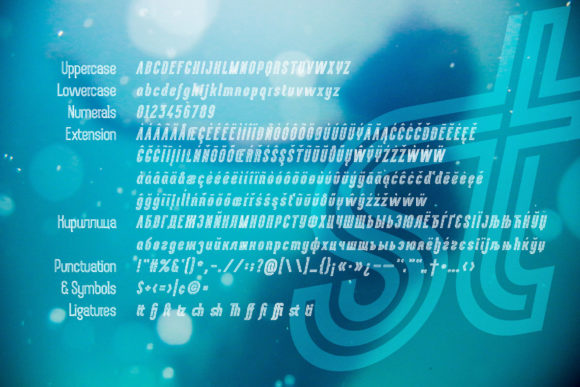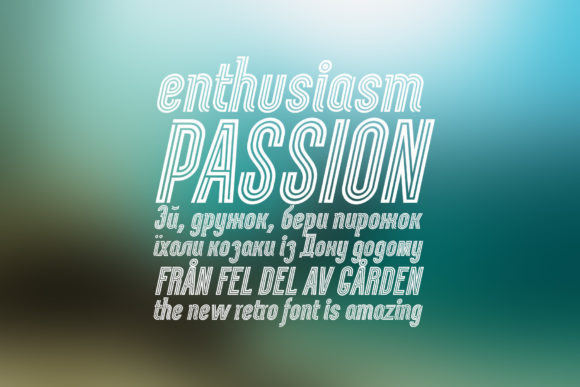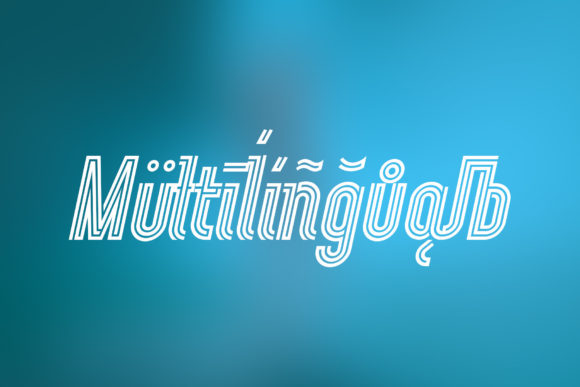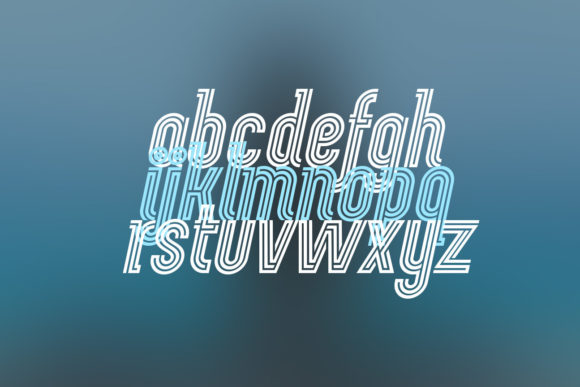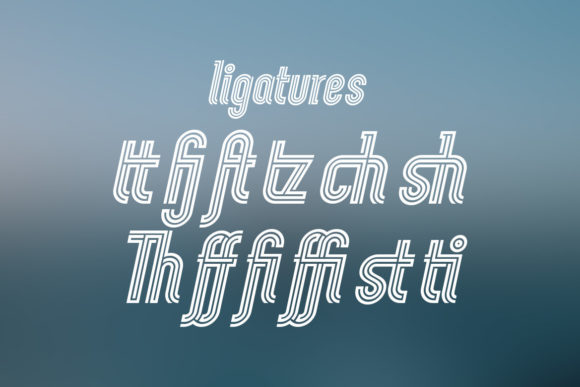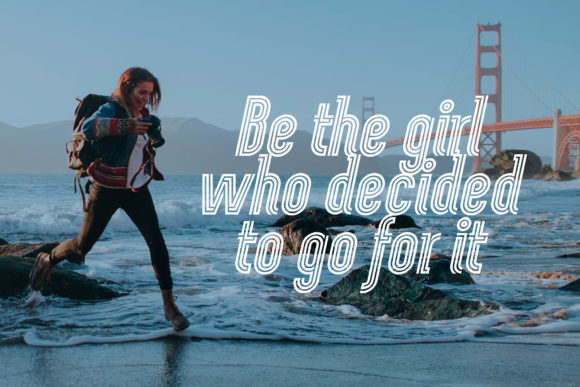
Introducing Chokana Italic Font: The Ultimate Retro Display Font for Your Designs
Are you looking for a font that can add a touch of nostalgia and vintage charm to your designs? Look no further than Chokana Italic Font. This cool and retro-styled display font is inspired by the 70’s aesthetic, featuring a multi-line design that is sure to transport your audience back in time. In this article, we’ll take a closer look at Chokana Italic Font, its features, and how you can use it to elevate your designs.
What is Chokana Italic Font?
Chokana Italic Font is a display font designed to capture the essence of the 1970s. The font features a unique multi-line design, which gives it a distinctive retro look. The italic style of the font adds a touch of elegance and sophistication, making it perfect for a wide range of design projects. Whether you’re creating a logo, poster, or social media graphic, Chokana Italic Font is sure to make your design stand out.
Key Features of Chokana Italic Font
So, what makes Chokana Italic Font so special? Here are some of its key features:
- Retro aesthetic: Chokana Italic Font is inspired by the 1970s, making it perfect for designers who want to add a touch of nostalgia to their designs.
- Multi-line design: The font’s multi-line design gives it a unique and distinctive look that’s sure to grab attention.
- Italic style: The italic style of the font adds a touch of elegance and sophistication, making it perfect for a wide range of design projects.
- Display font: Chokana Italic Font is designed specifically for display purposes, making it perfect for headlines, titles, and other attention-grabbing elements.
How to Use Chokana Italic Font in Your Designs
Chokana Italic Font is a versatile font that can be used in a wide range of design projects. Here are some ideas to get you started:
- Logos and branding: Use Chokana Italic Font to create a unique and memorable logo that captures the essence of your brand.
- Posters and flyers: Add a touch of nostalgia to your posters and flyers with Chokana Italic Font.
- Social media graphics: Use Chokana Italic Font to create eye-catching social media graphics that are sure to grab attention.
- Packaging design: Add a touch of vintage charm to your packaging design with Chokana Italic Font.
Benefits of Using Chokana Italic Font
So, why should you choose Chokana Italic Font for your designs? Here are some benefits of using this font:
- Unique and distinctive look: Chokana Italic Font has a unique and distinctive look that’s sure to make your designs stand out.
- Easy to read: Despite its retro aesthetic, Chokana Italic Font is easy to read, making it perfect for display purposes.
- Versatile: Chokana Italic Font can be used in a wide range of design projects, from logos and branding to posters and social media graphics.
- Nostalgic appeal: Chokana Italic Font has a nostalgic appeal that’s sure to transport your audience back in time.
| Font Name | Chokana Italic Font |
| Author | NREY |
In conclusion, Chokana Italic Font is a cool and retro-styled display font that’s perfect for designers who want to add a touch of nostalgia and vintage charm to their designs. With its unique multi-line design, italic style, and distinctive retro aesthetic, Chokana Italic Font is sure to make your designs stand out. Whether you’re creating a logo, poster, or social media graphic, Chokana Italic Font is a great choice. So why not give it a try and see how it can elevate your designs?